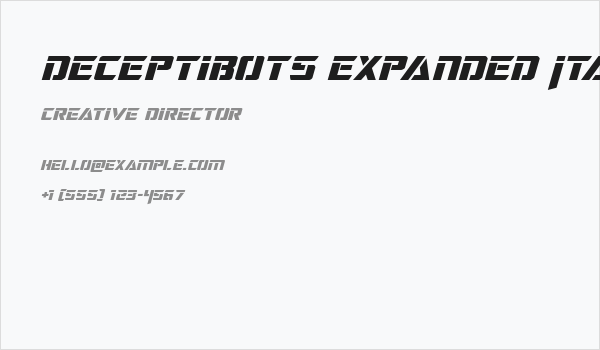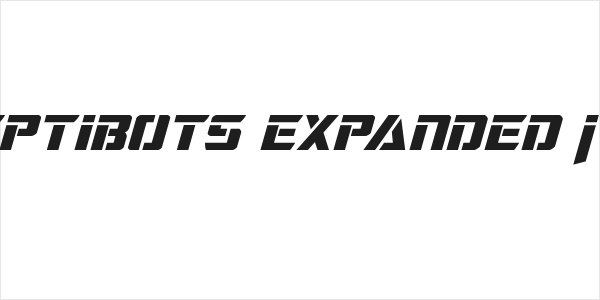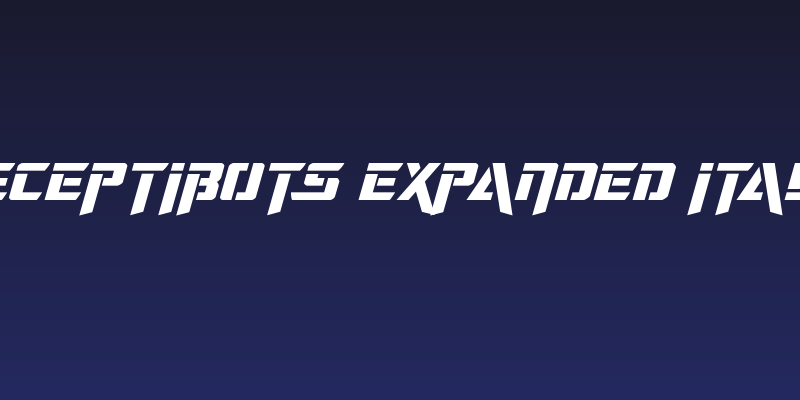
Deceptibots Expanded Italic Font
Deceptibots Expanded Italic Description
This font exhibits a bold and futuristic design, characterized by its angular and geometric letterforms. The expanded width and italic slant give it a dynamic and forward-moving appearance, suitable for modern and tech-oriented themes. The characters are distinct with sharp edges and a consistent stroke weight, creating a cohesive and impactful visual presence. The font includes a full set of uppercase and lowercase letters, numbers, and a variety of special characters, making it versatile for various design needs.
| Proposed Projects | Ideal for sci-fi movie posters, tech branding, video game titles, and futuristic event flyers. |